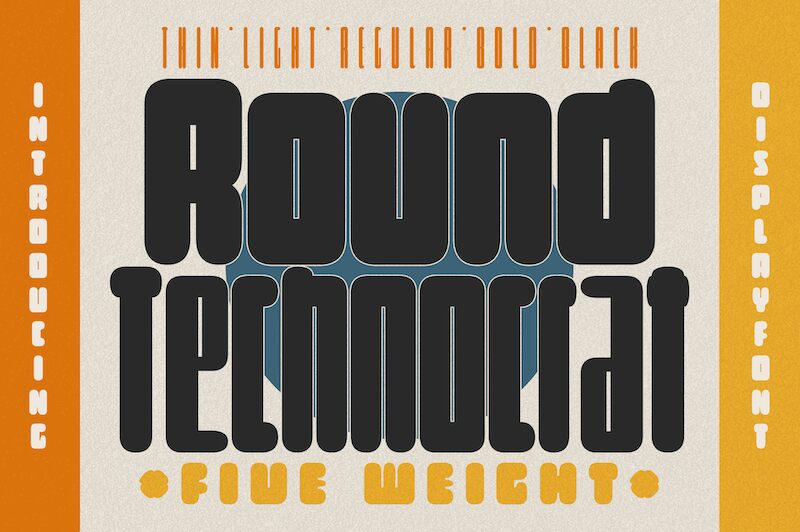
Round Technocrat PERSONAL Bold
Dive into the future of typography with Round Technocrat Bold – a display font where the cutting edge of technology meets typographic artistry. Designed by the renowned Mans Greback, this member of the Round Technocrat family exudes confidence and clarity. Its extra-bold weight commands attention, while its condensed width ensures a powerful presence without overwhelming your design space.
The techno style of Round Technocrat Bold is perfect for projects that call for a blend of modernity and precision. Its rounded, geometric contours offer a friendly yet professional tone, making it an ideal choice for branding, digital interfaces, or any creative endeavor looking to make a bold statement.
Whether you're crafting captivating headlines or seeking to inject sleekness into logos and signage, Round Technocrat Bold stands out as a versatile ally. Its unique balance between square shapes and circular curves creates an aesthetic harmony that can elevate your project from ordinary to extraordinary.